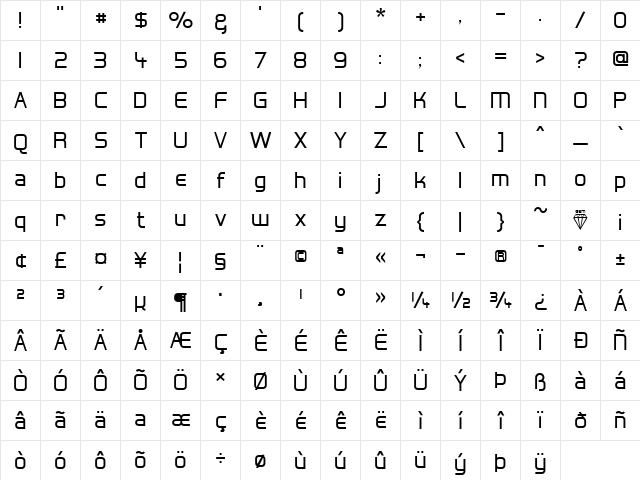
Hall Fetica Regular
Design Context for Hall Fetica Typeface
Hall Fetica offers clean, dependable letterforms without strong stylistic allegiance, making it a practical choice for designers who need flexibility.